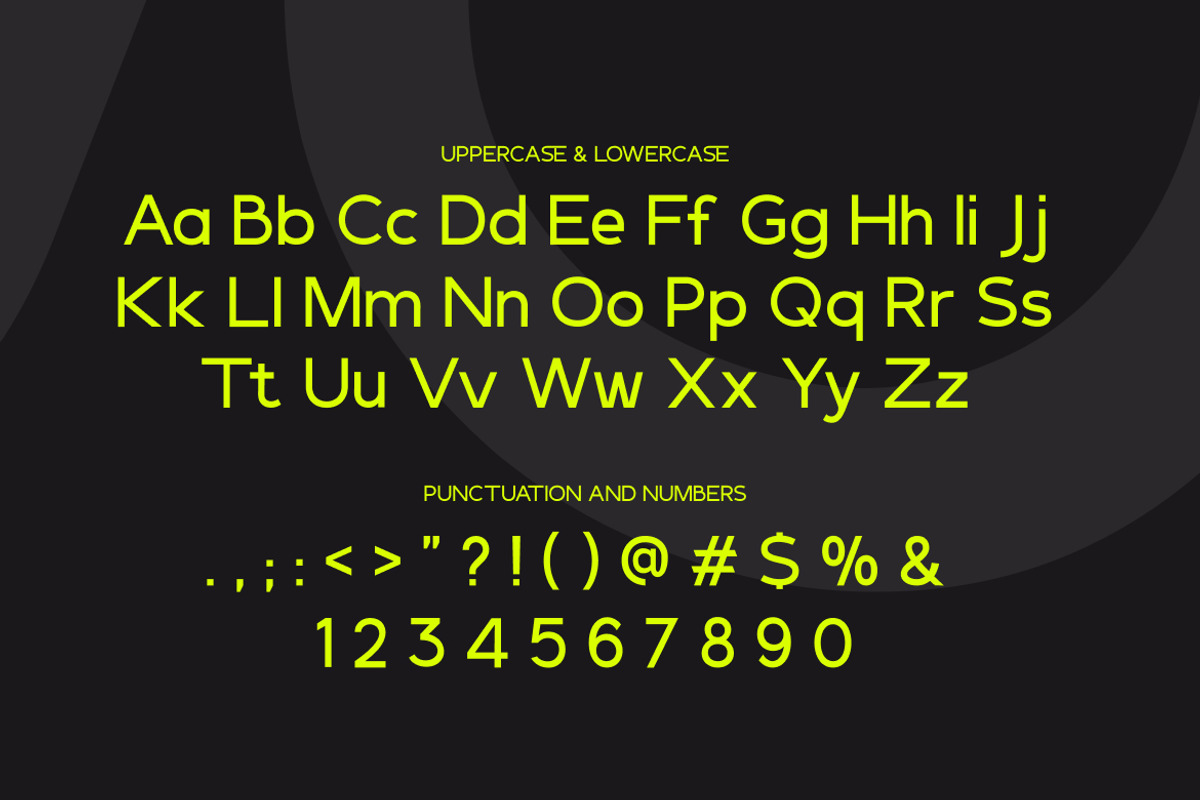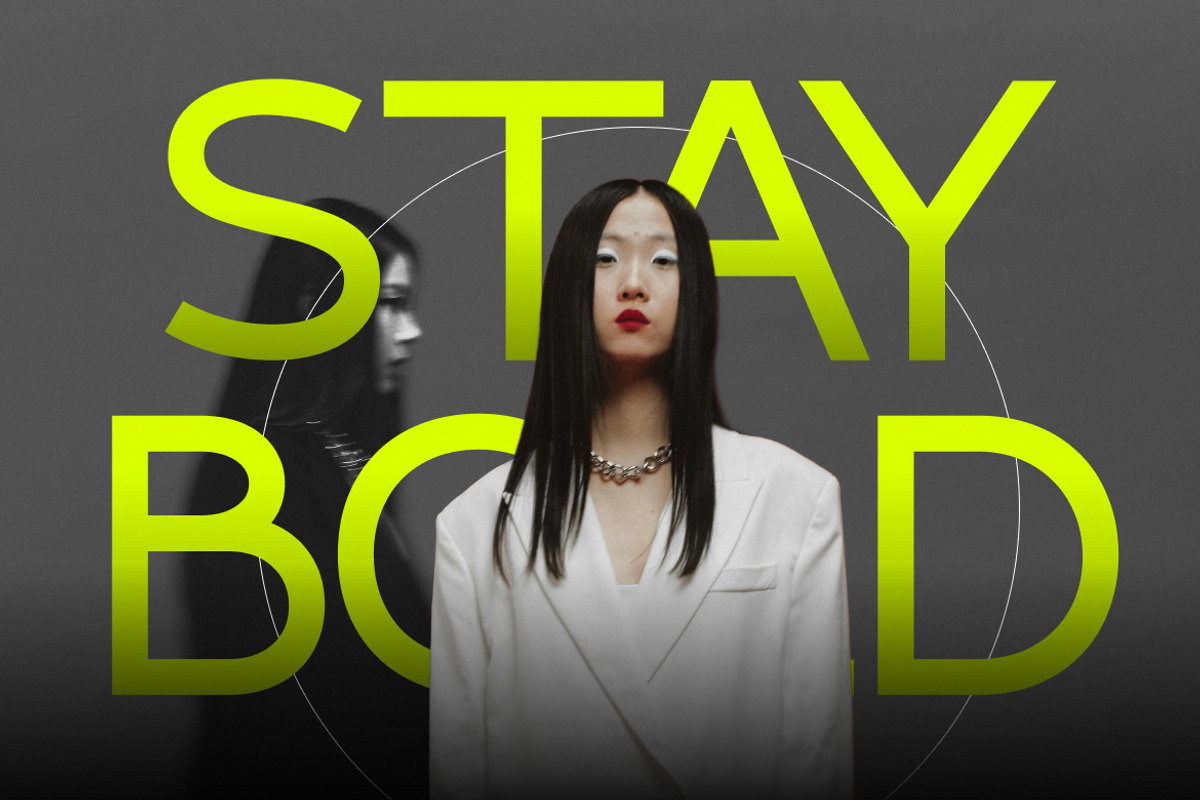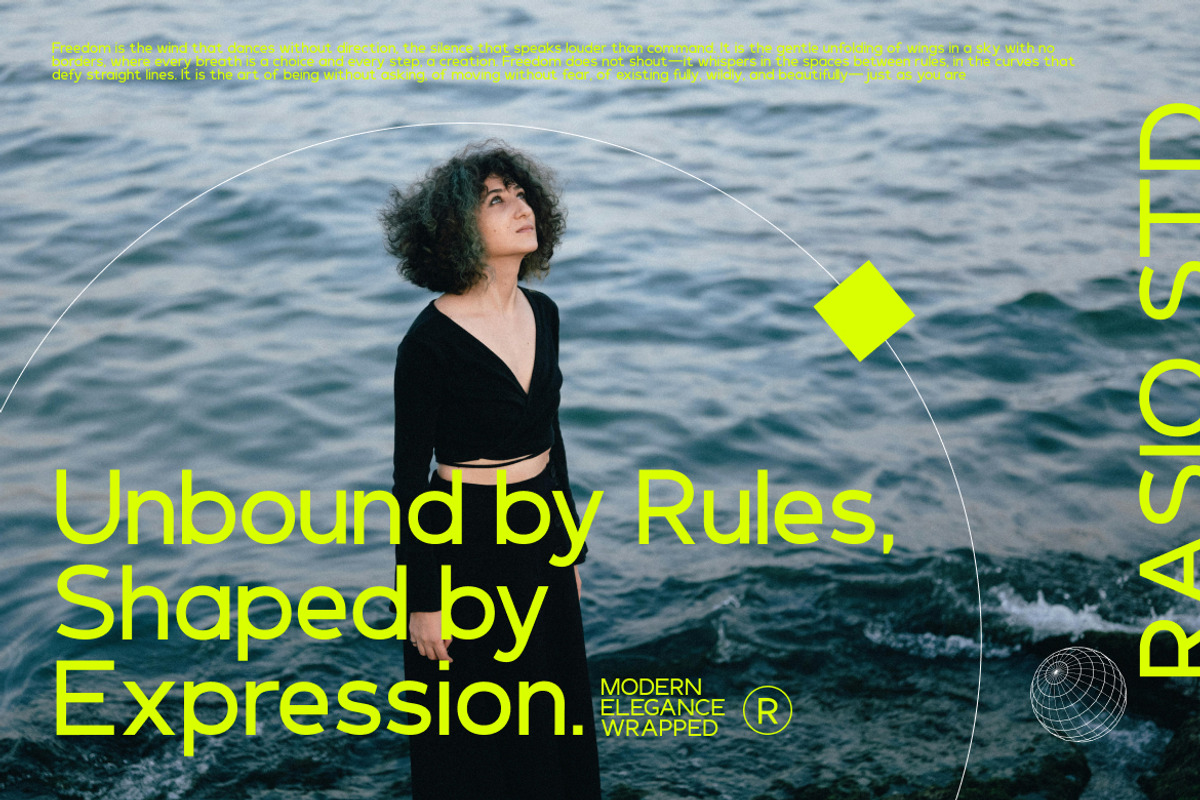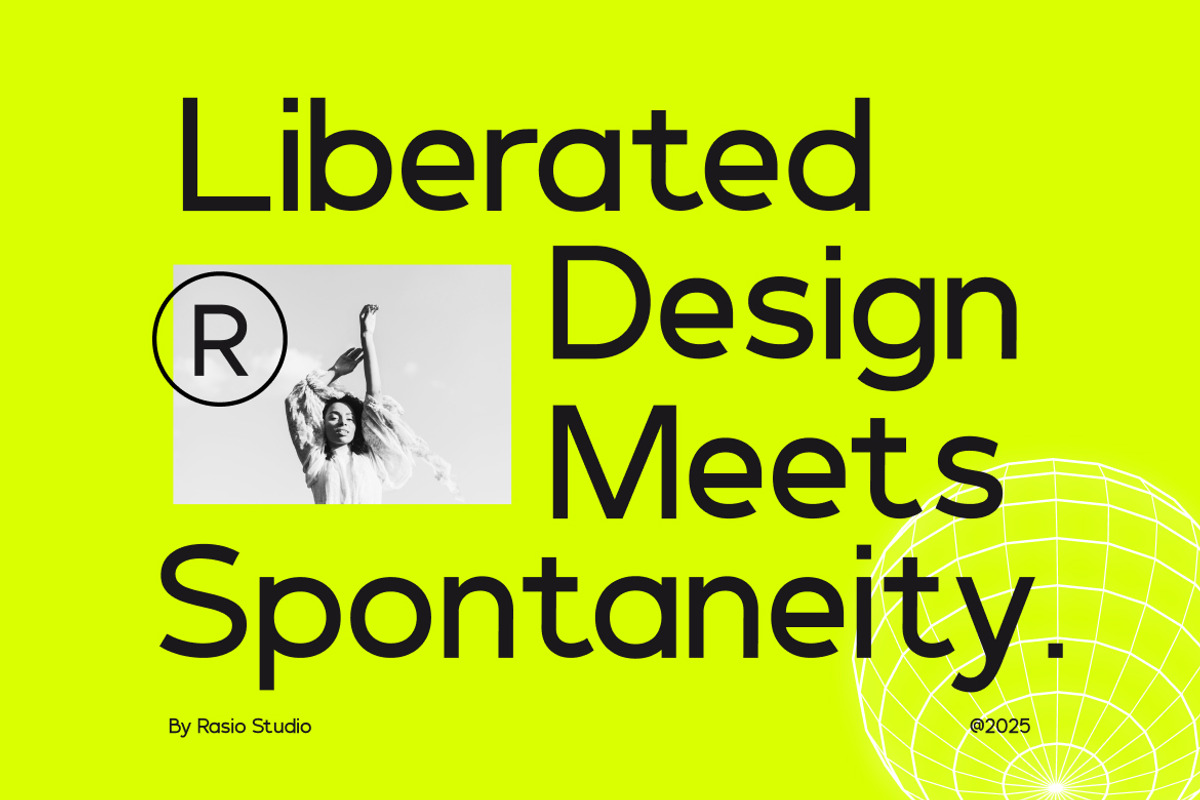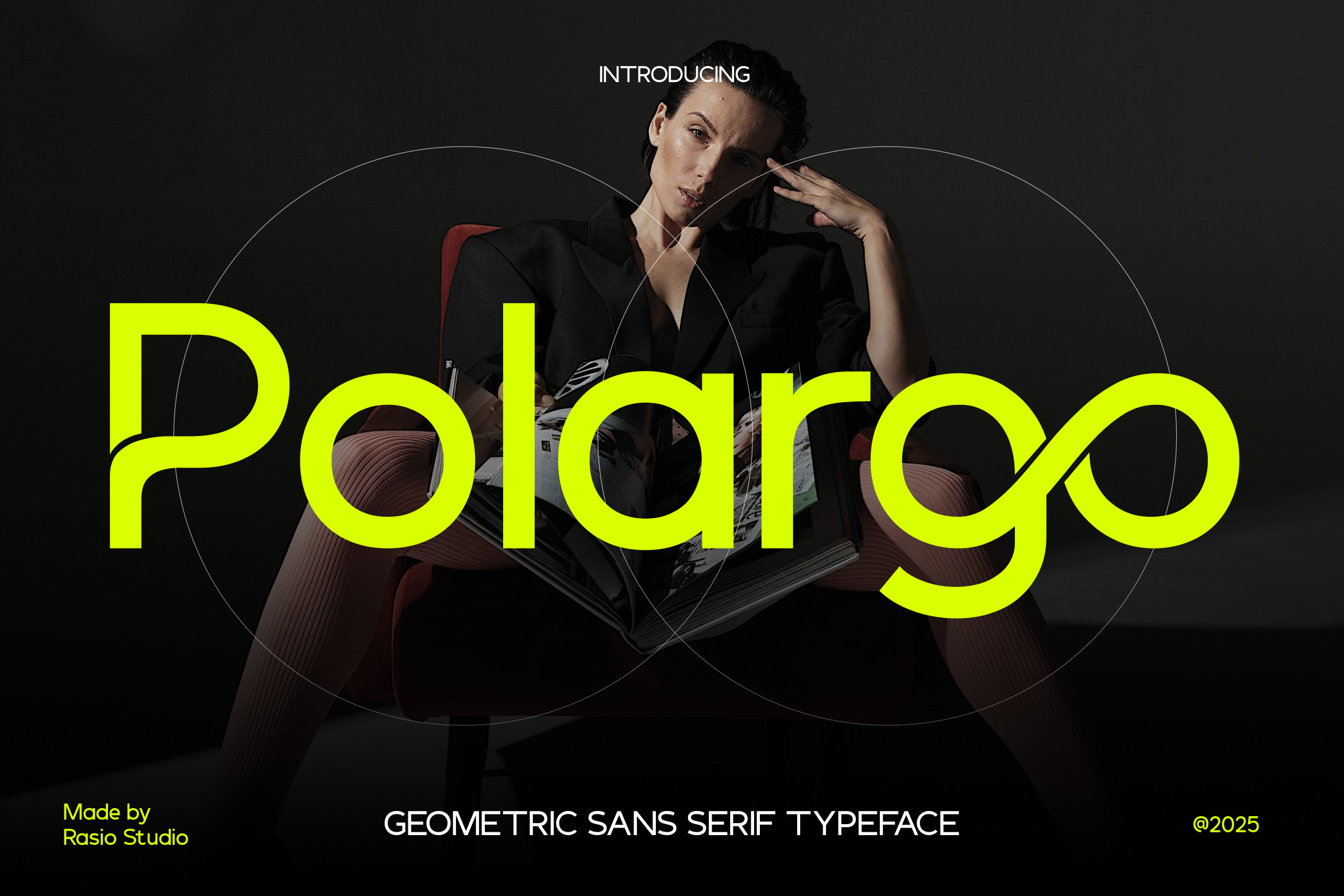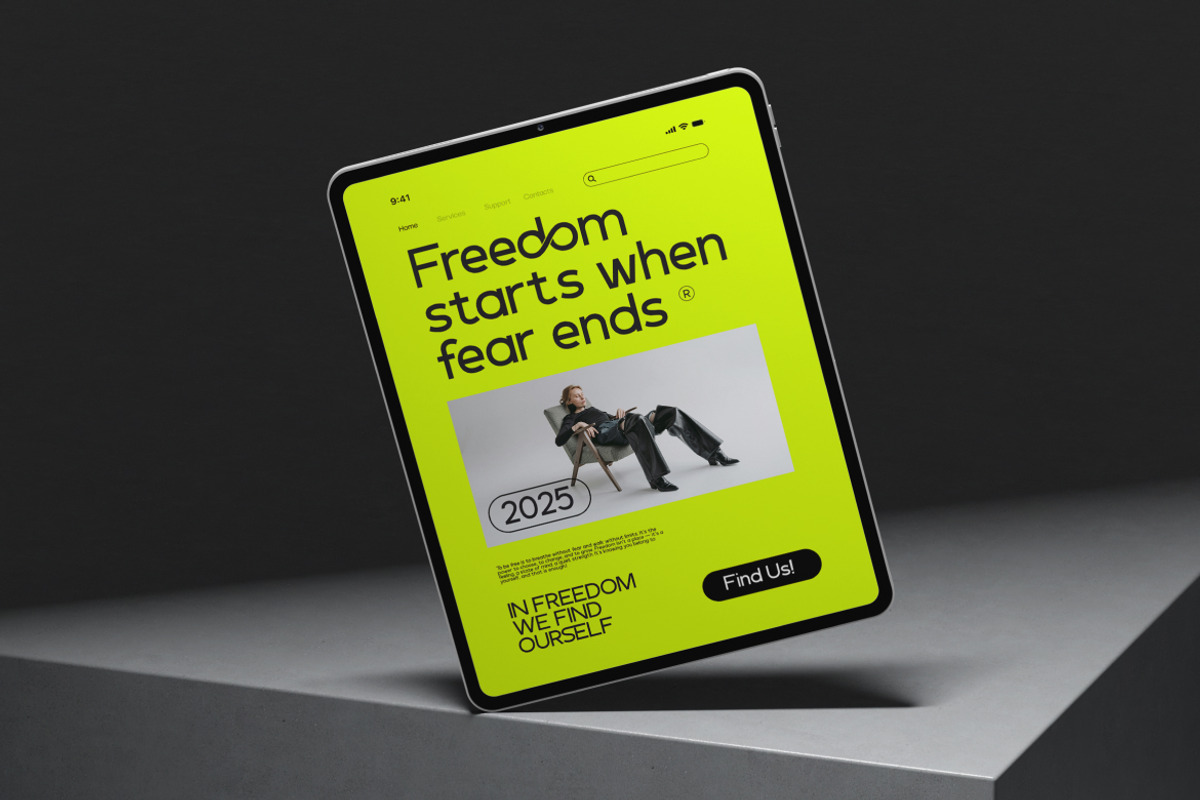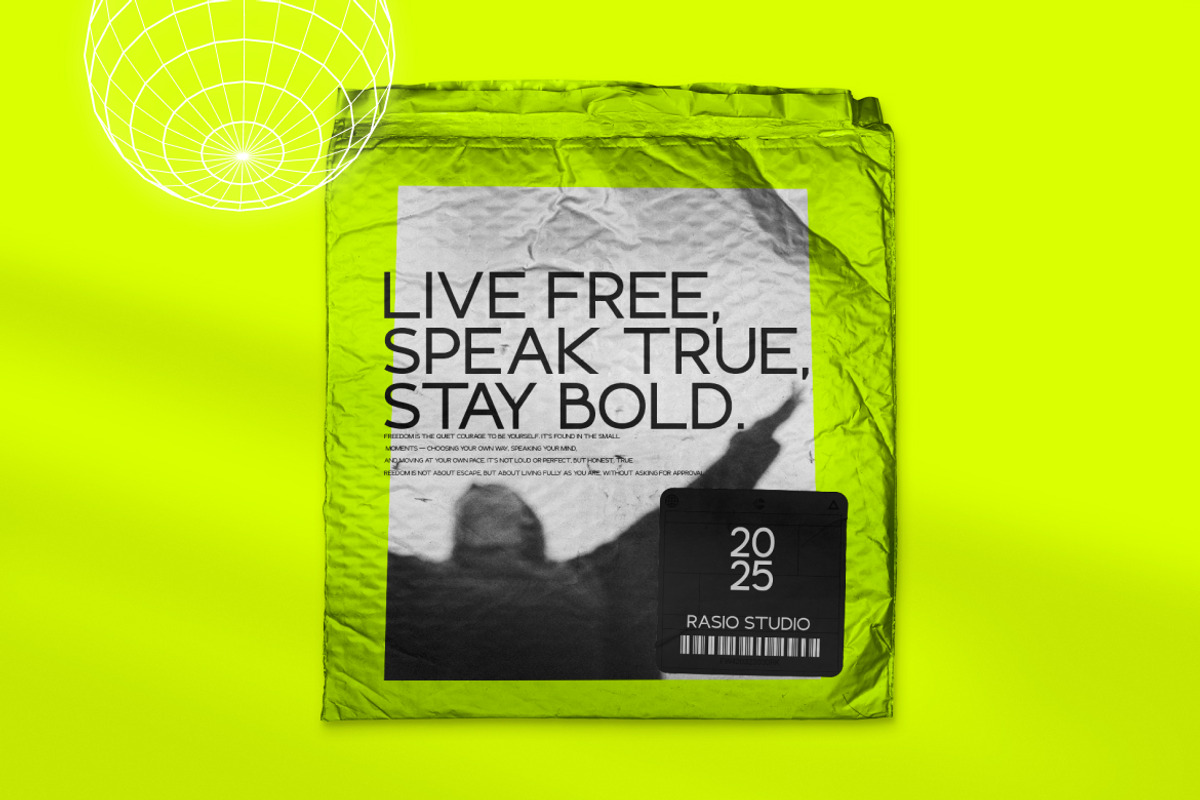
Polargo Geometric Sans Serif Font
Polargo is a modern geometric sans serif font with sleek lines, clean proportions, and a distinctive contemporary character. Designed by Rasio STD, this typeface blends simplicity with subtle stylistic details especially in its ribbon‑like curves and unique descender loops giving it a refined yet expressive look. Polargo includes uppercase and lowercase letters, numerals, punctuation, and multilingual support.
Polargo is ideal for designers and brands seeking a refined but expressive sans serif with contemporary appeal. Its geometric structure makes it perfect for high‑impact headlines, corporate branding, modern websites, digital UI/UX components, editorial layouts, packaging design, posters, and creative marketing materials.
- Geometric sans serif structure with a modern and minimalist foundation
- Smooth, ribbon-like curves in descenders for a unique visual signature
- Rounded edges and balanced letterforms to enhance approachability
- Consistent stroke width for a clean, uniform appearance across weights
- Carefully crafted spacing for optimal performance in both headlines and body text
- Tech and startup brand identities that balance innovation with clarity
- UI/UX design systems for web and mobile with a clean, modern edge
- Editorial layouts and digital magazines that embrace minimalism
- Product packaging for lifestyle, fashion, or wellness brands
- Social media kits and digital ads with a contemporary, expressive feel
Polargo blends modern form with bold clarity perfect for expressive, standout design